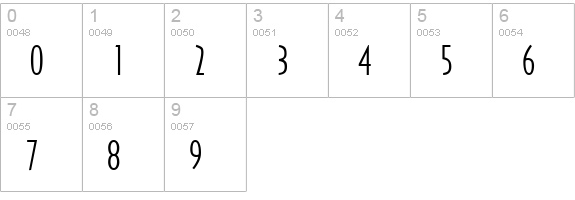
Sandyhill Regular is the standard, neutral variant in the Sandyhill typeface family \xE2\x80\x94 well suited to general body text, paragraphs, and standard typographic work.
Sandyhill Regular is a versatile and modern font that adds a touch of elegance to any design. Its clean and legible letterforms make it perfect for both digital and print applications. Whether you're working on a branding project, creating eye-catching advertisements, or designing a stylish website, Sandyhill Regular is sure to deliver a professional and polished look. This font features a balanced combination of rounded and straight edges, creating a harmonious blend of softness and structure. The carefully designed letterforms exude a sense of sophistication and refinement, making Sandyhill Regular suitable for a wide range of design styles and purposes. One of the best things about Sandyhill Regular is that it is free. That's right, you can download this stunning font at no cost from FontsMarket.com. This means that you can freely incorporate Sandyhill Regular into your projects without worrying about breaking the bank. With its high-quality design and accessibility, Sandyhill Regular is a must-have font for designers and creatives alike. Whether you're a professional designer looking for a new go-to font or a hobbyist wanting to explore typography, Sandyhill Regular is a fantastic choice. Its versatility, elegance, and availability make it a valuable addition to any font library. So why wait? Head over to FontsMarket.com and download Sandyhill Regular for free today!